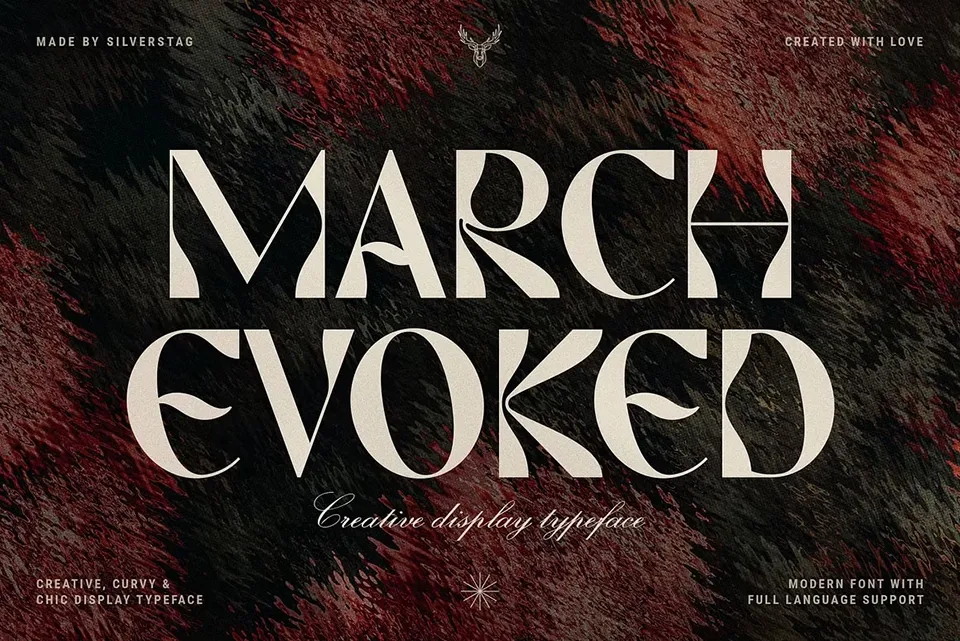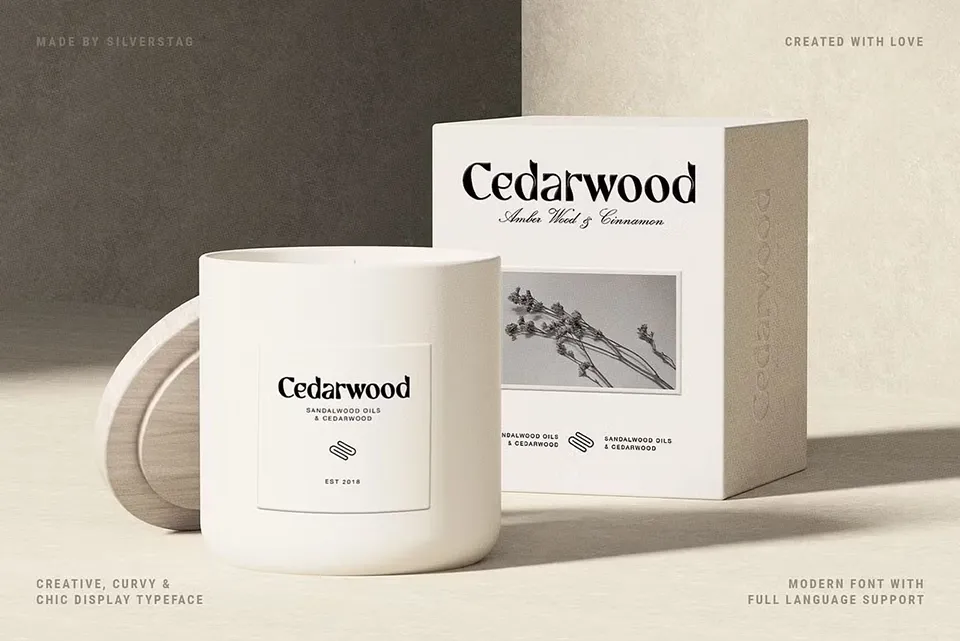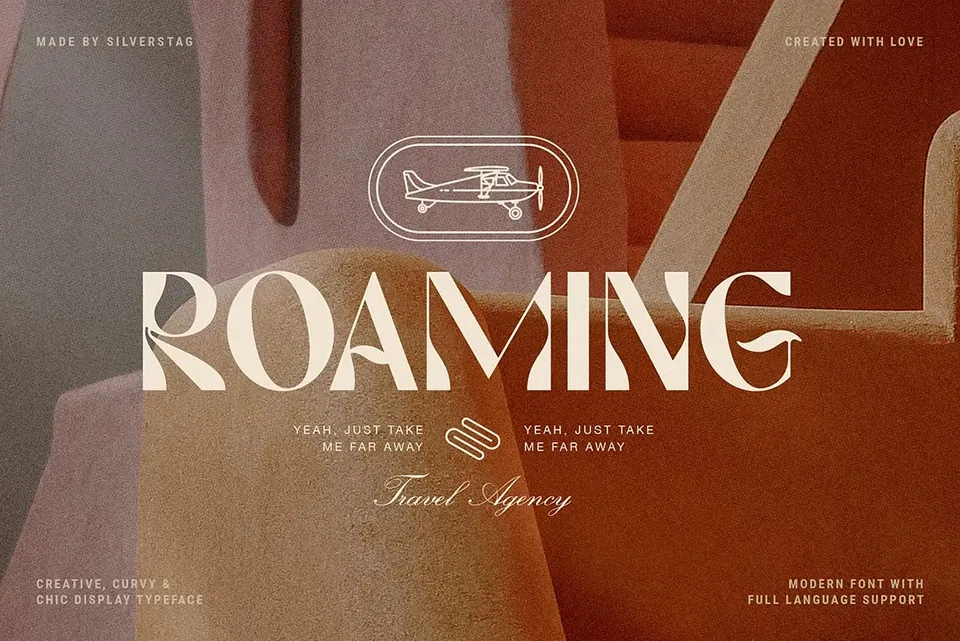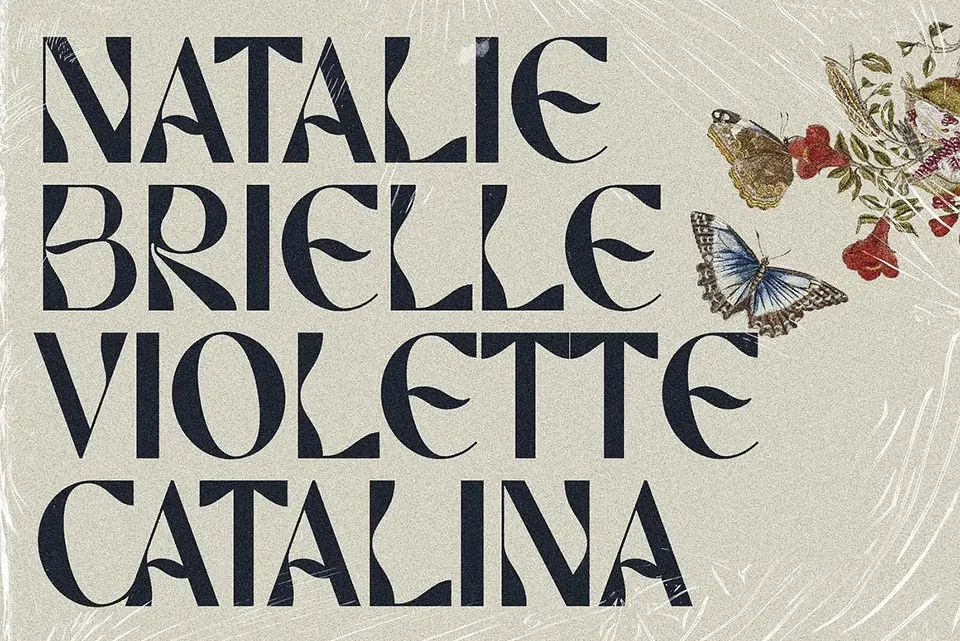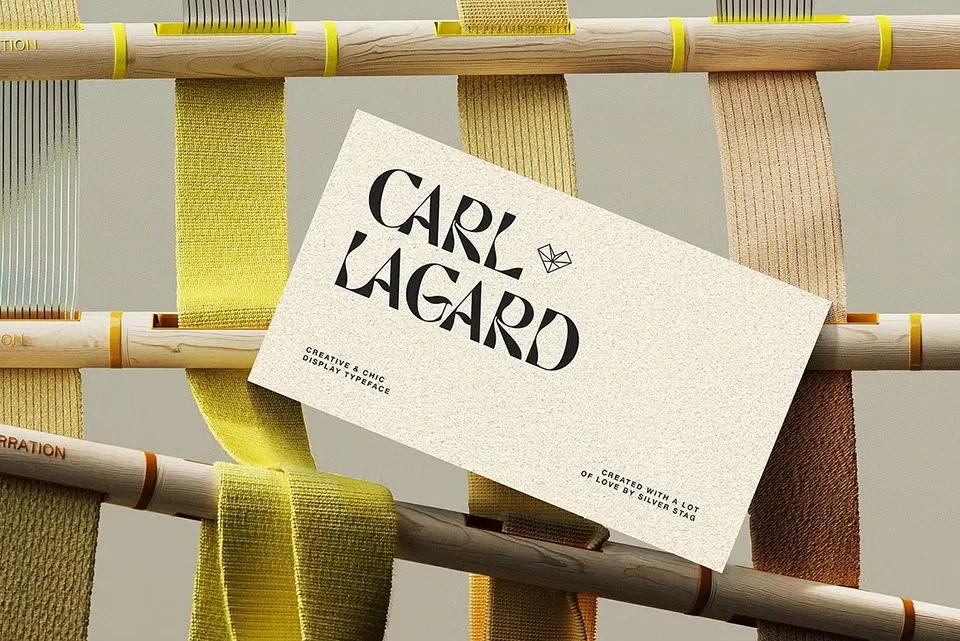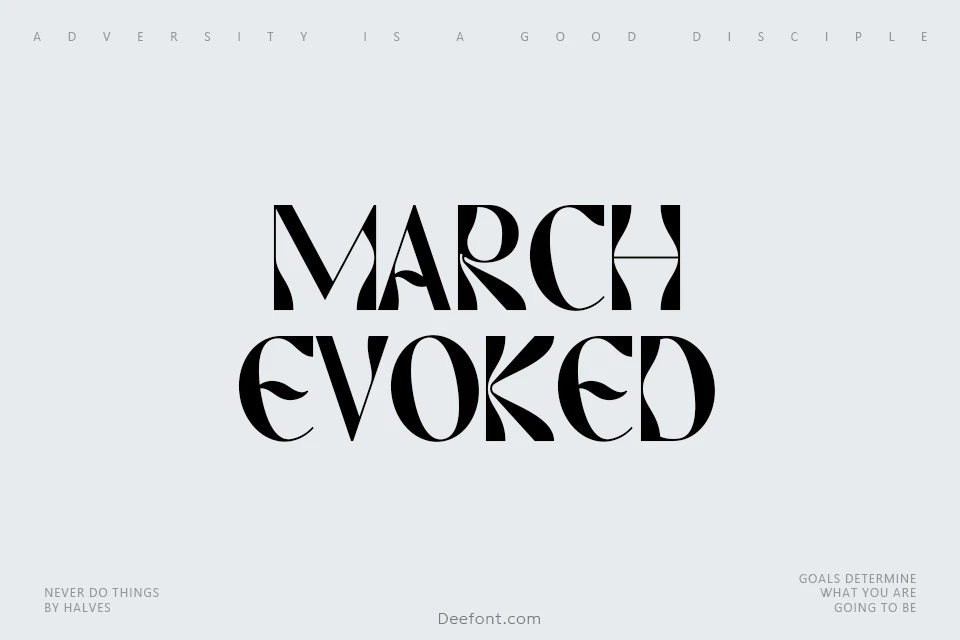
March Evoked Font
March Evoked Font is a creative and chic display typeface inspired by early spring in Spain, featuring elegant contrast lines and curvy, geometric shapes. Its refined, modern aesthetic makes it ideal for logos, branding, posters, social media graphics, and other creative projects that demand a sophisticated and stylish look. March Evoked Font includes both regular and outlined versions, full language support, numerals, punctuation, and a range of alternates and ligatures to enhance your typographic designs.